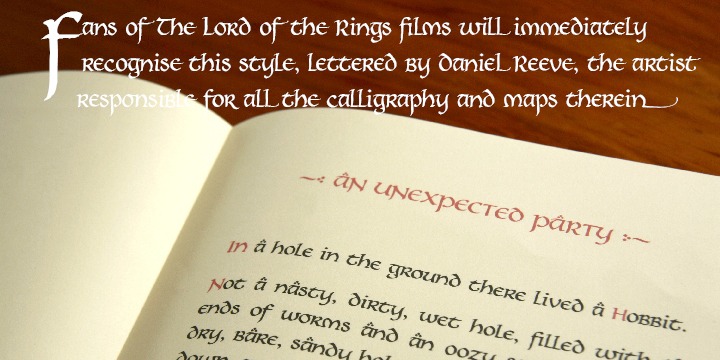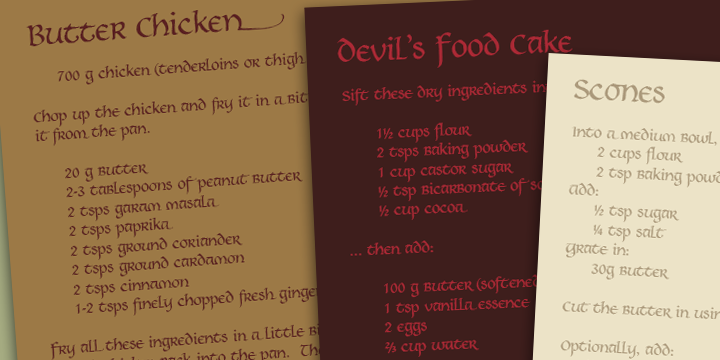
Daniel Reeve
Daniel Reeve is a freelance artist, cartographer, calligrapher and type designer from Titahi Bay, near Wellington, New Zealand. His hand-crafted fonts allow users to emulate the calligraphic styles for which he has become well known in the film world.
Kereru™